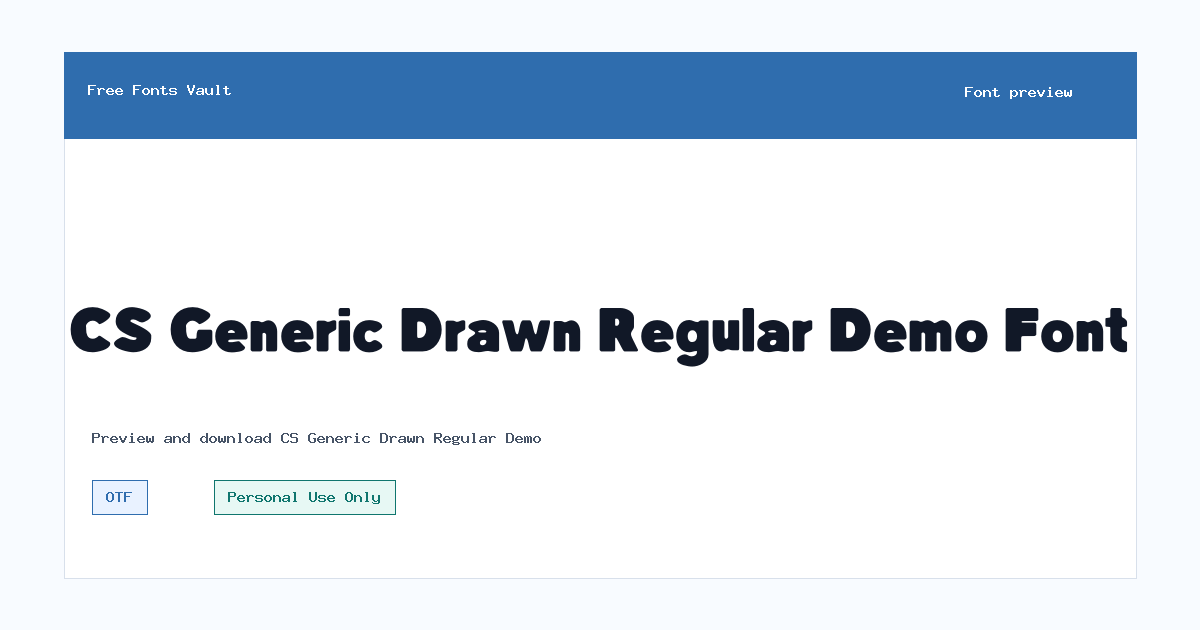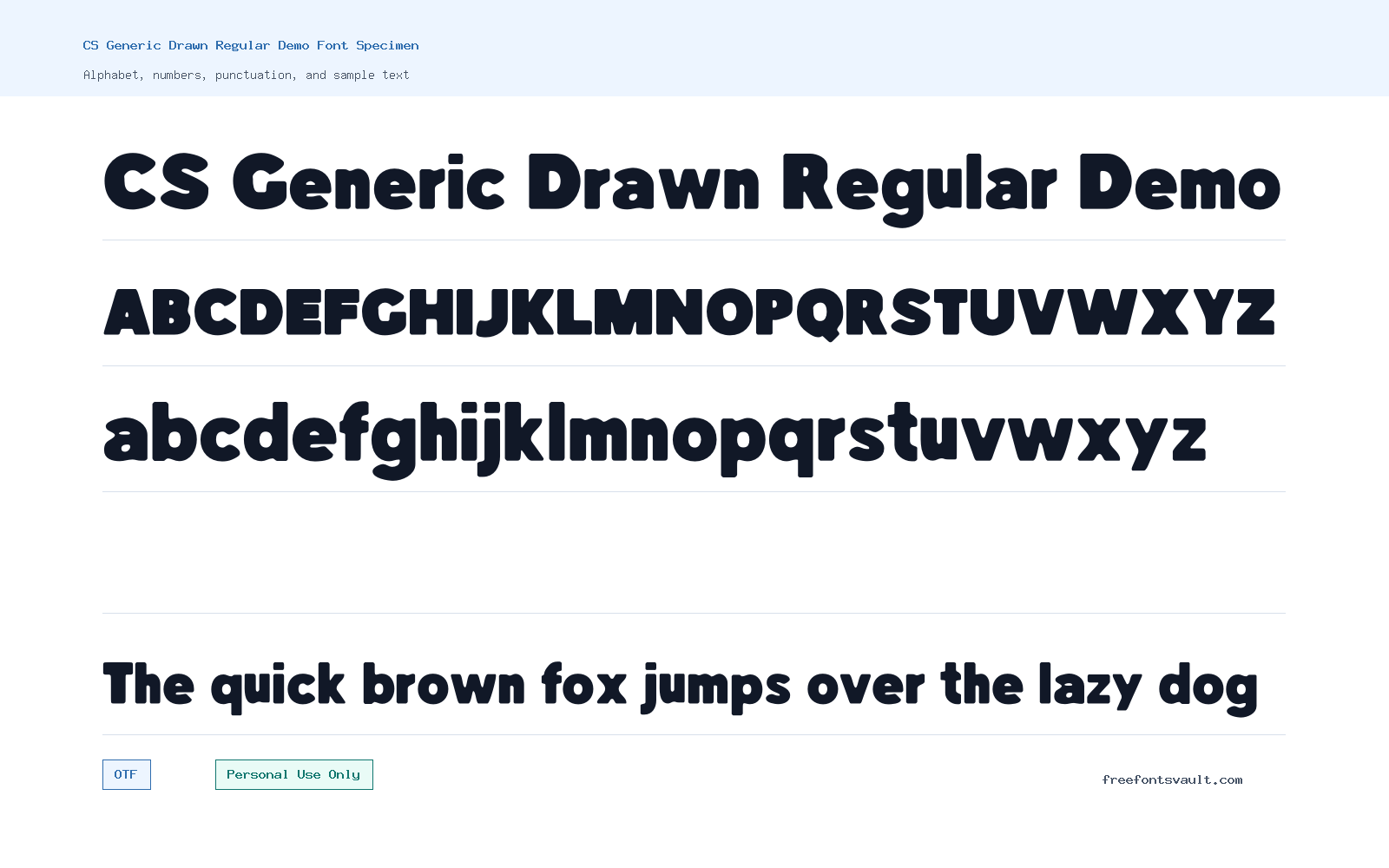
CS Generic Drawn Regular Demo
CS Generic Drawn Regular Demo is a drawn sans serif font with a regular weight and a hand-rendered feel. It is best treated as a display font for personal projects where you want simple letter shapes with a sketched, casual edge.
About CS Generic Drawn Regular Demo
CS Generic Drawn Regular Demo keeps the structure of a sans serif while adding a drawn texture to the letters. That balance makes it more approachable than a clean geometric typeface, but still easier to read than many heavily decorative hand-drawn fonts. The regular weight gives it enough presence for headings, short labels, quote graphics, and poster-style layouts without feeling too heavy. Because the style is intentionally drawn, small imperfections are part of the look rather than something to smooth away.
Use this font where personality matters more than long-form reading comfort. It can work well for social posts, event flyers, casual branding drafts, mood boards, packaging mockups, classroom graphics, and web design concepts. For logo work, test the exact brand name at several sizes before committing, especially if the design needs to feel polished or premium. The drawn finish can be charming in a friendly identity, but it may not fit formal business, legal, finance, or luxury contexts. In web mockups, try it in hero headings or callout text rather than full paragraphs, then pair it with a plain sans serif for body copy.
- Drawn sans serif appearance with a casual hand-made texture
- Useful for short display text, titles, mockups, and personal design experiments
- Cleaner base structure than many decorative hand-lettered fonts
- Best used at medium to large sizes where the drawn detail can be seen
- Personal posters and event flyers
- Logo concepts and casual branding mockups
- Pinterest pins, social graphics, and quote images
- Website hero headings and design previews
- Packaging mockups, labels, and mood boards
- Classroom, craft, or handmade-themed visuals
Start by previewing your actual words rather than judging the font from the alphabet alone. Drawn fonts can change character depending on letter combinations, spacing, and size. For posters or social graphics, increase tracking slightly if the text feels tight. For logo drafts, compare all-caps, title case, and lowercase versions, then check how the wordmark looks in black and white. Pair CS Generic Drawn Regular Demo with a neutral sans serif for descriptions, dates, buttons, and longer copy. Avoid pairing it with another rough handwritten font unless you want a very informal look; too many textured fonts in one layout can make the design feel noisy.
What kind of font is CS Generic Drawn Regular Demo?
It is a drawn sans serif demo font. The letterforms follow a sans serif structure, while the drawn finish gives the text a more handmade and casual look.
Is this font good for logos?
Can I use it for website body text?
It is better for headings, banners, and short display text. For paragraphs, pair it with a simpler sans serif that stays comfortable to read at small sizes.
What should I pair it with?
Use a clean sans serif for body text and interface details. A neutral companion font will let the drawn style stand out without making the layout feel cluttered.